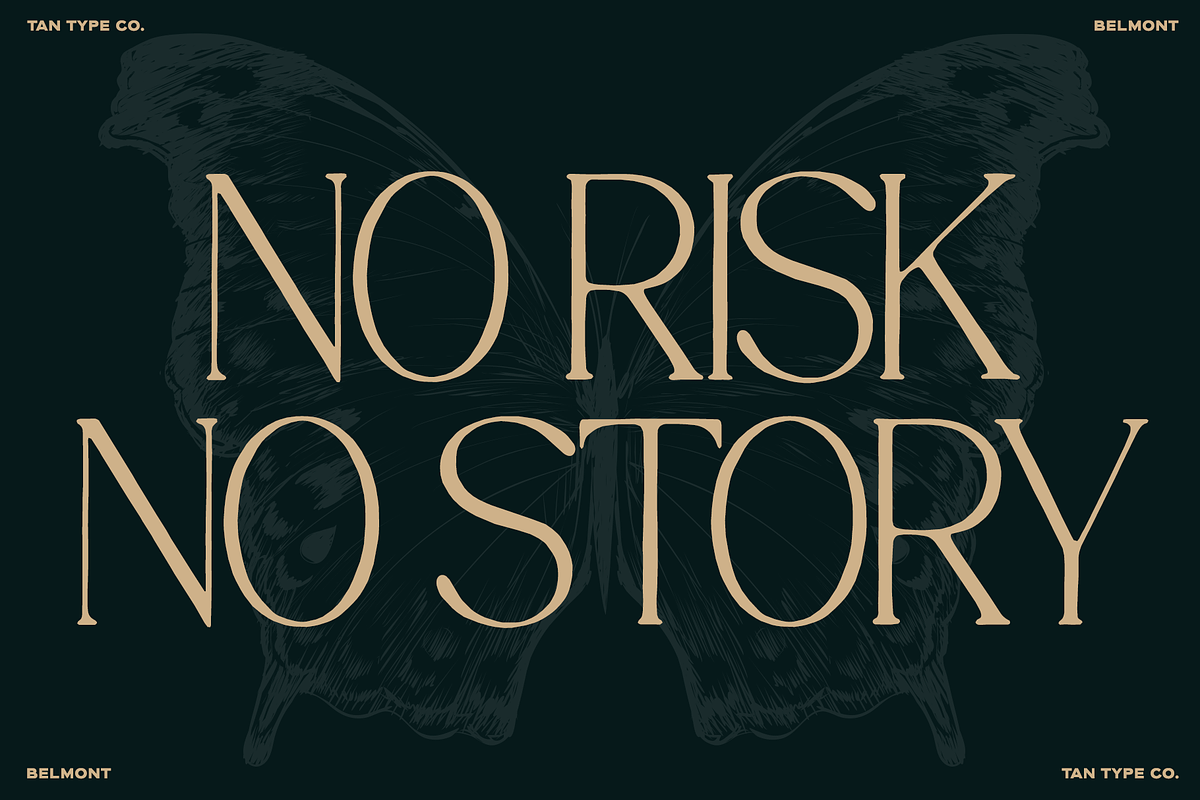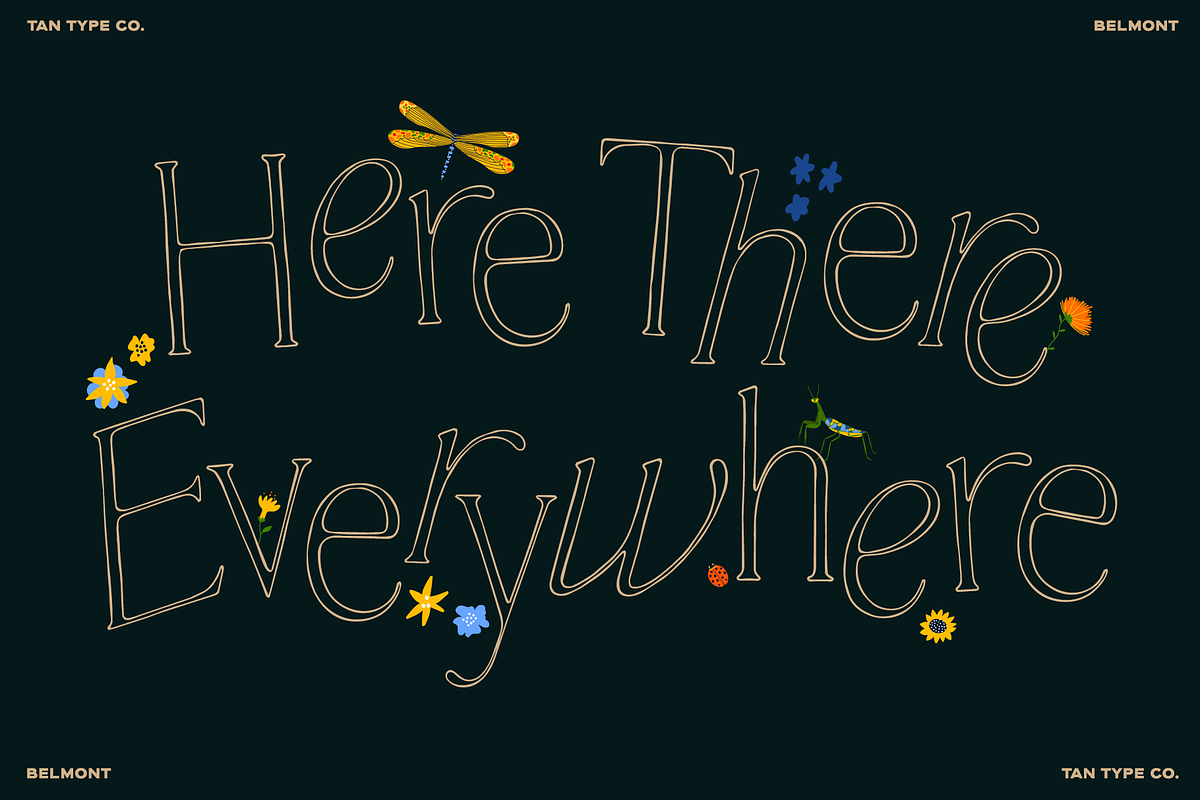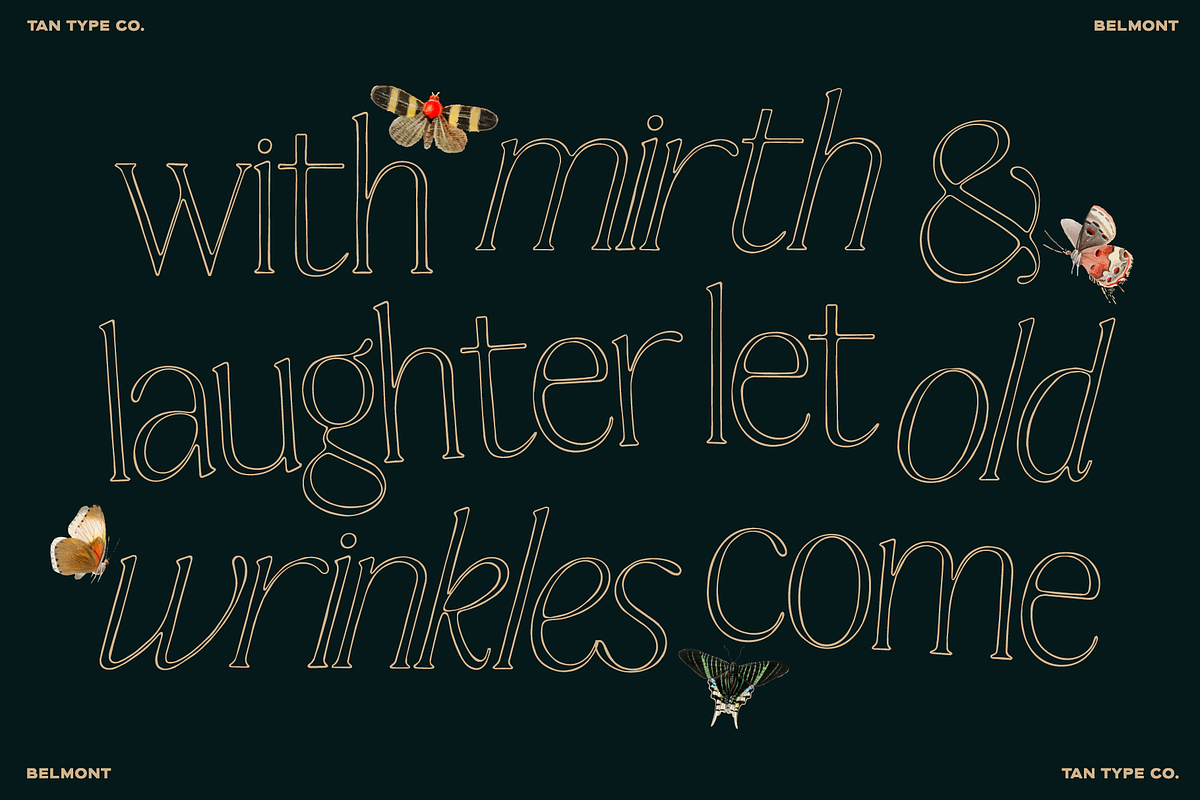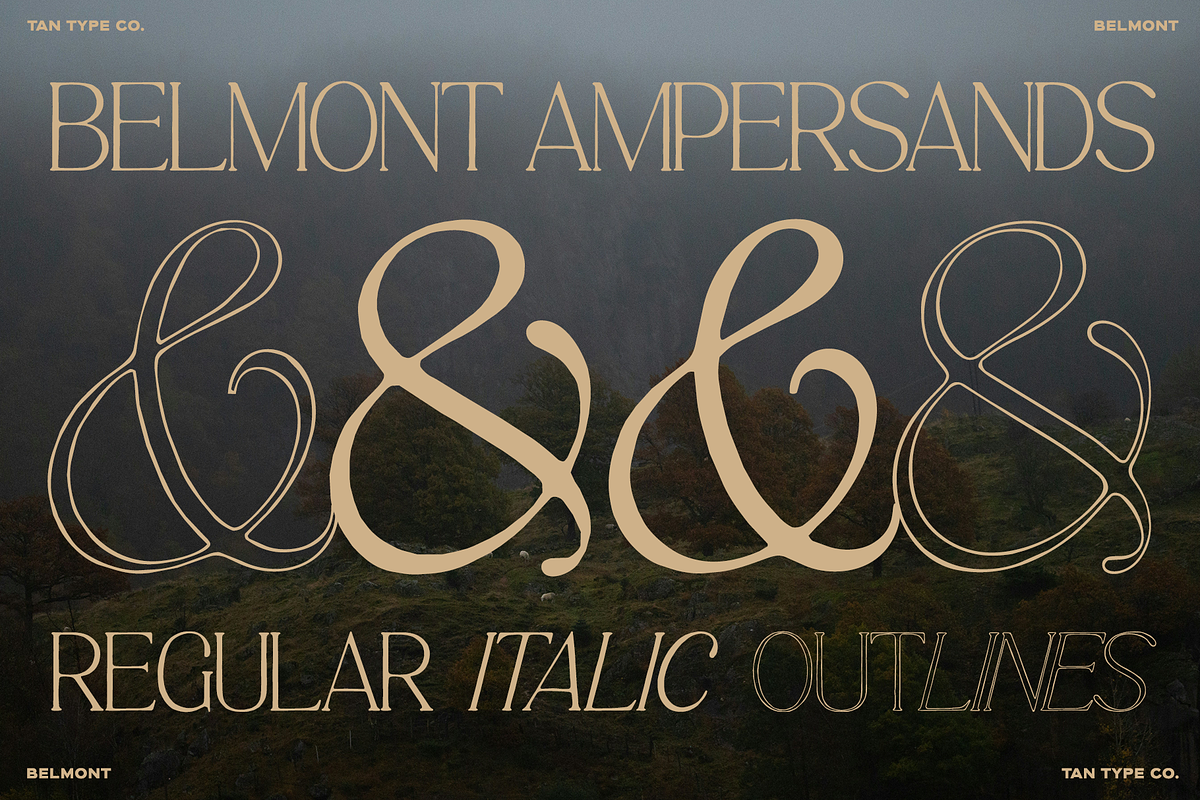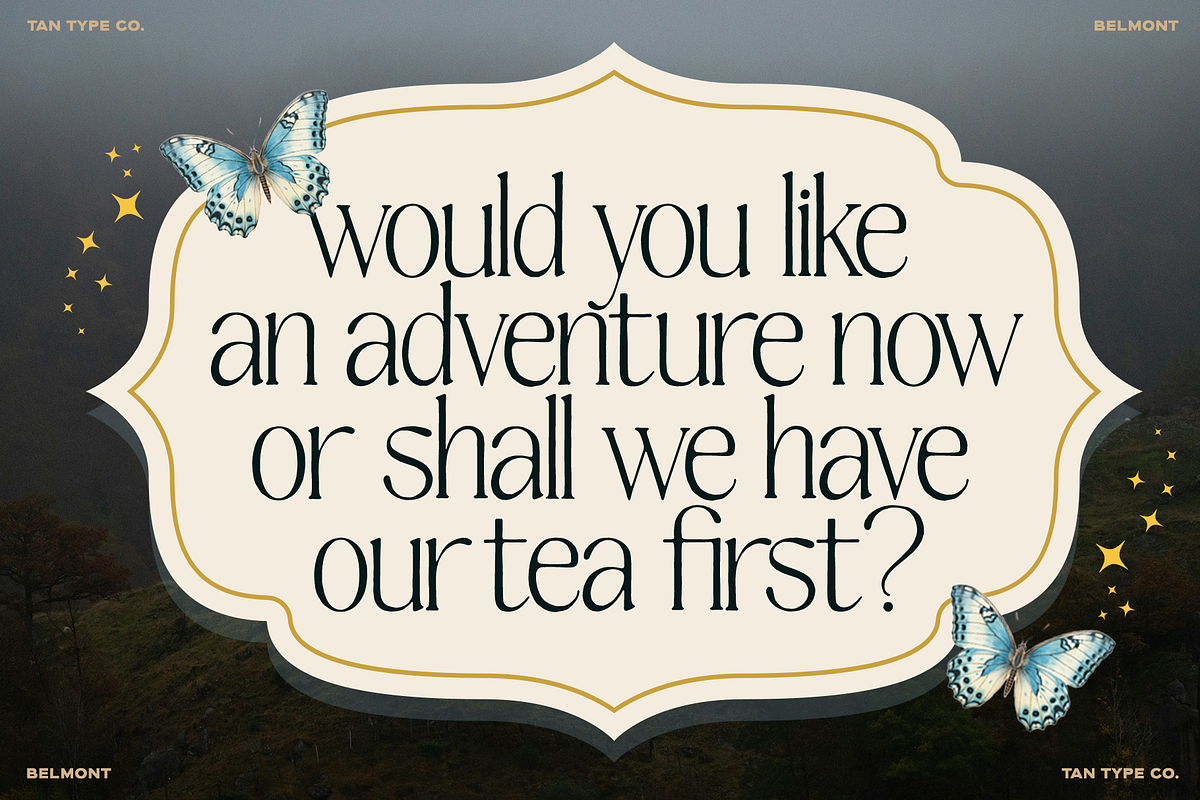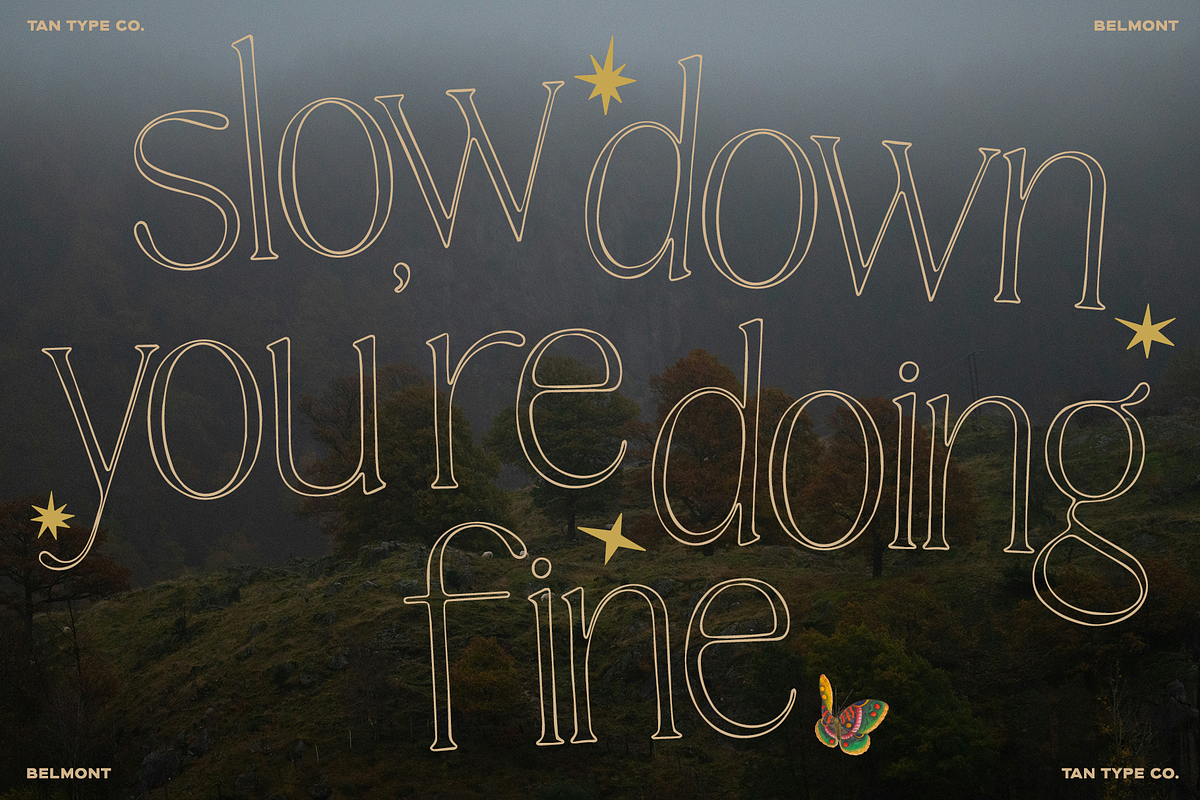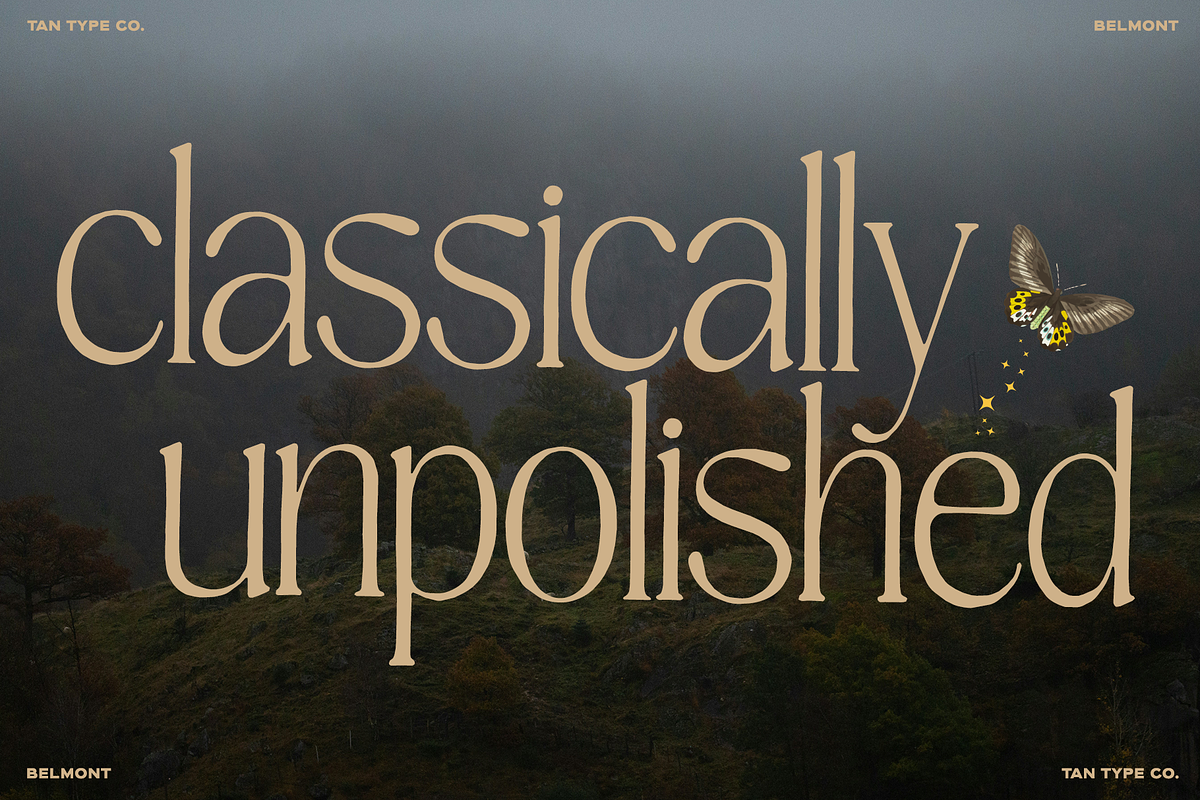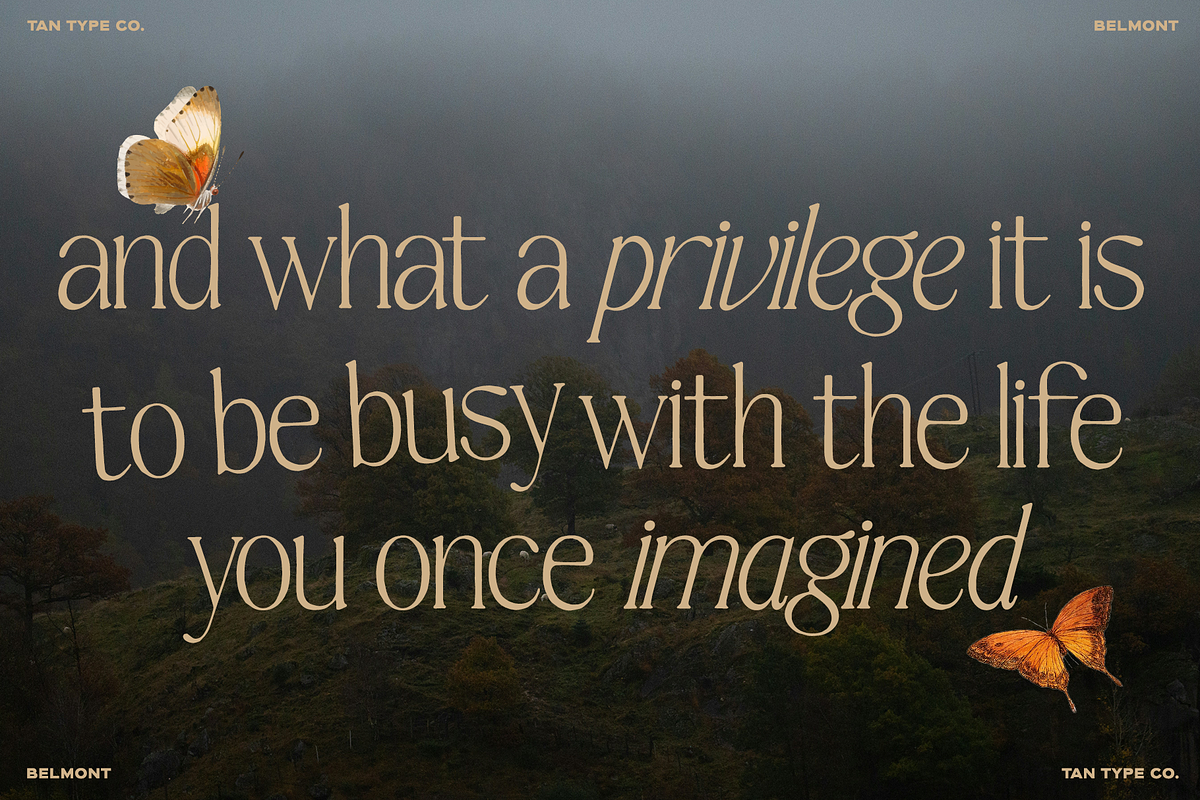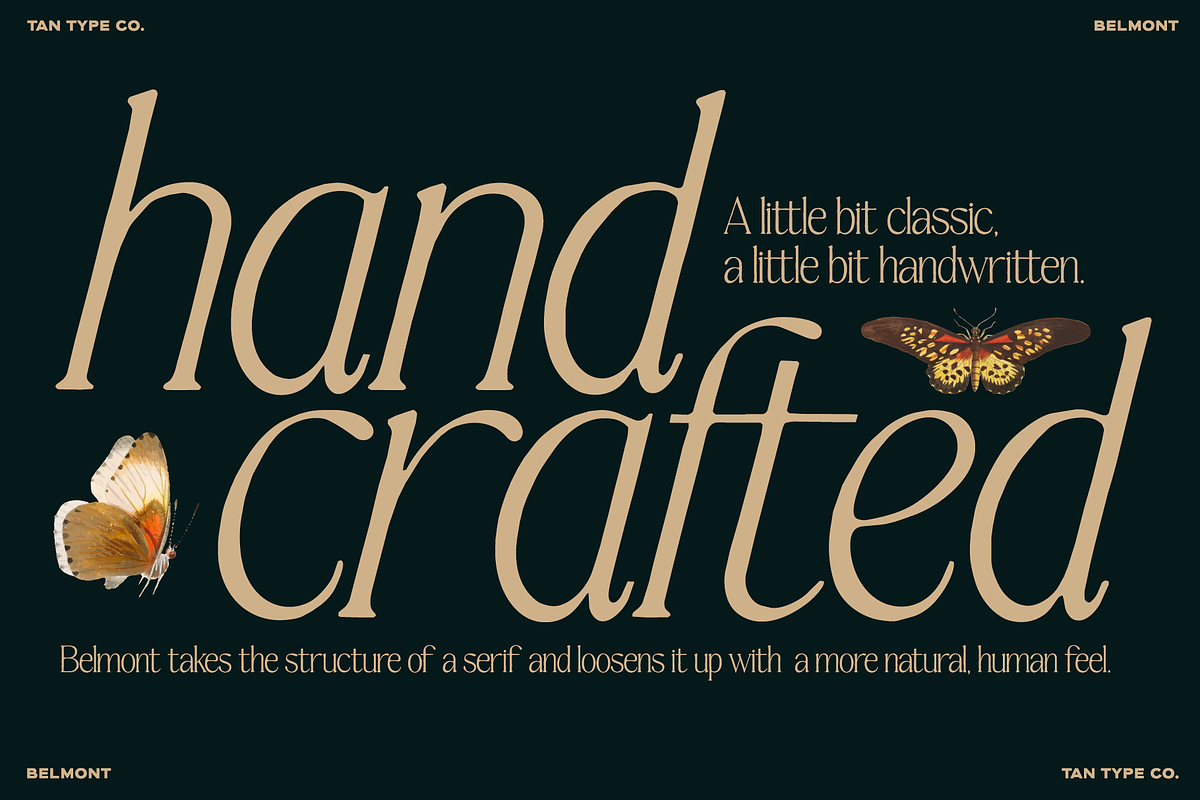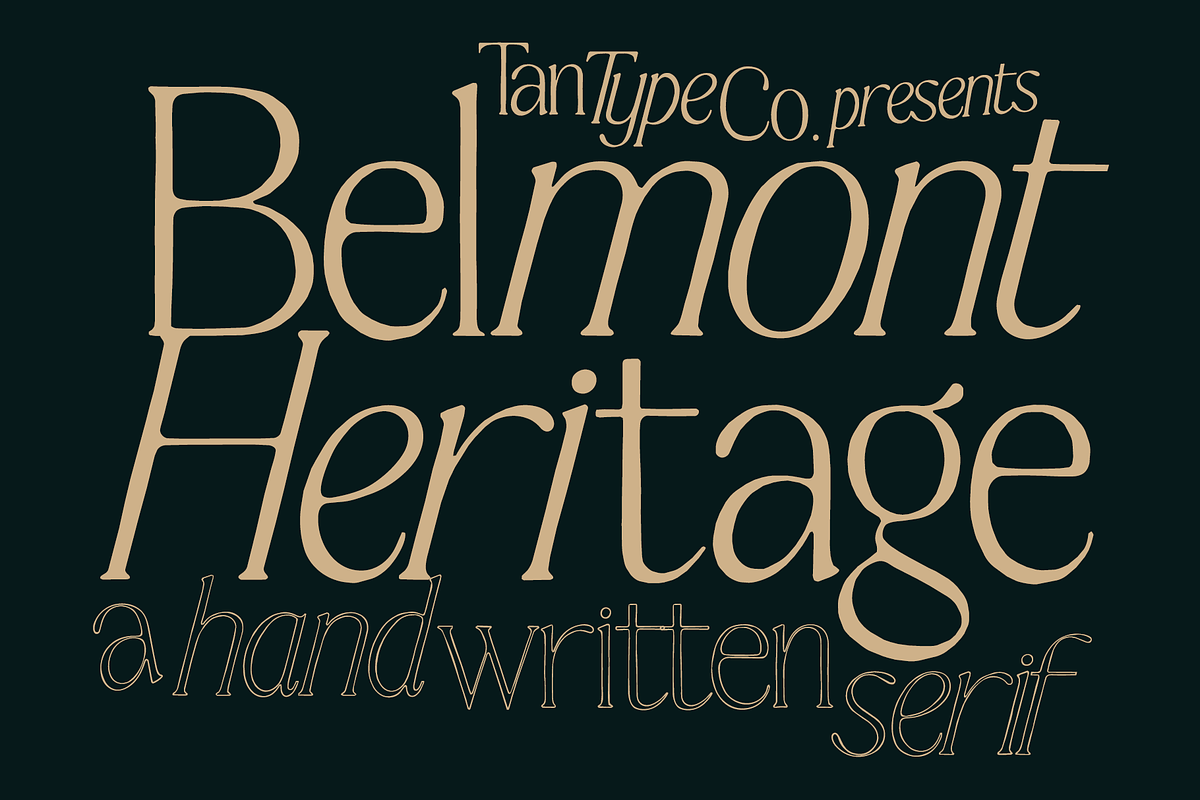
TAN-BELMONT-HANDWRITTEN SERIF
TAN-BELMONT is a thin serif with a handcrafted feel. It takes inspiration from classic serif typefaces, but keeps the little imperfections that give hand-drawn lettering its character. The letterforms are light and delicate, with subtle variations in the curves and serifs. It has the elegance of a traditional serif, but feels a little more relaxed and personal. Belmont works beautifully for branding, editorial layouts, invitations, packaging, logos, stationery, and other designs where you want something classic with a handmade touch.